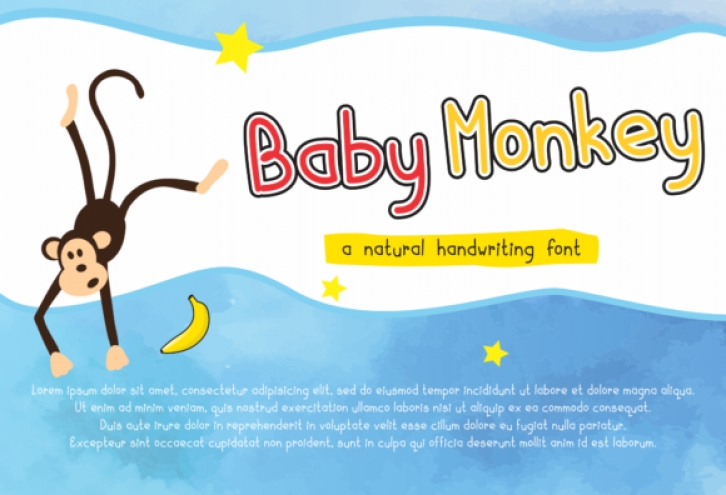
Baby Monkey is a fun and friendly handwritten font. Smooth and versatile, this font suits various kids and school projects. Add to your favorite creative ideas and see how they make them come alive!